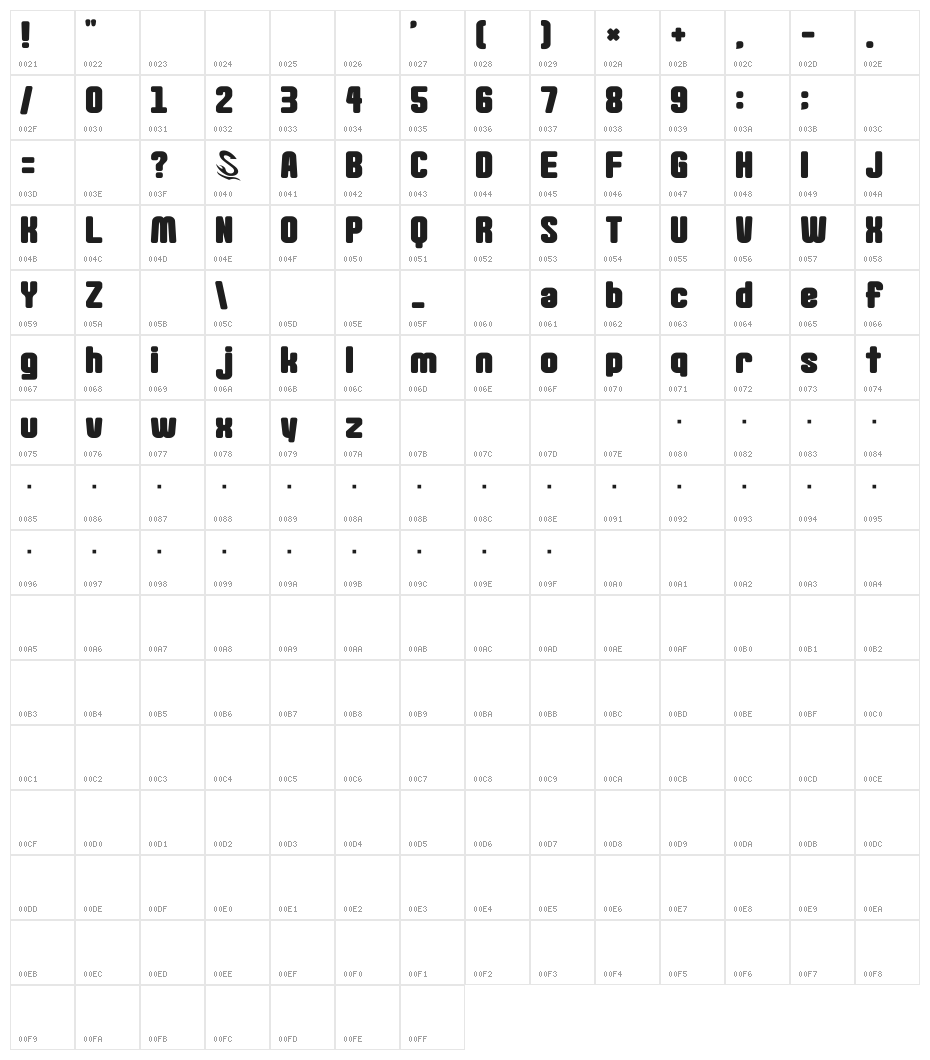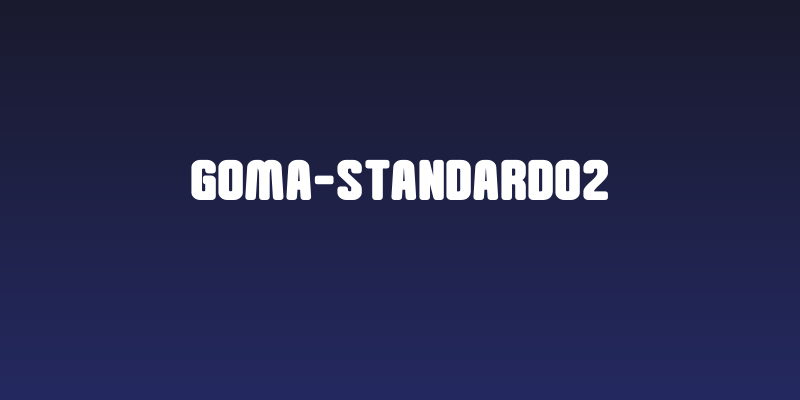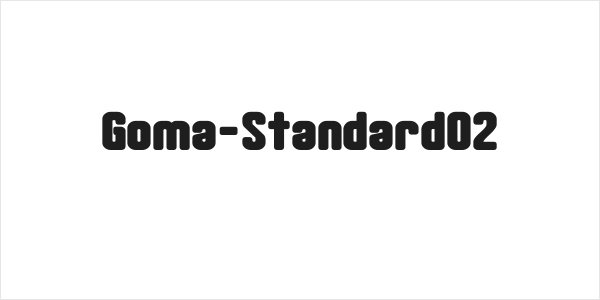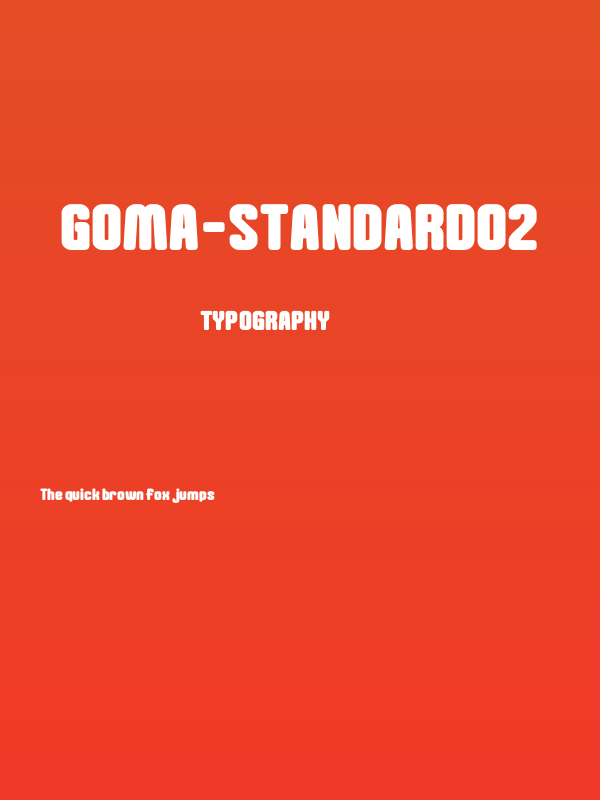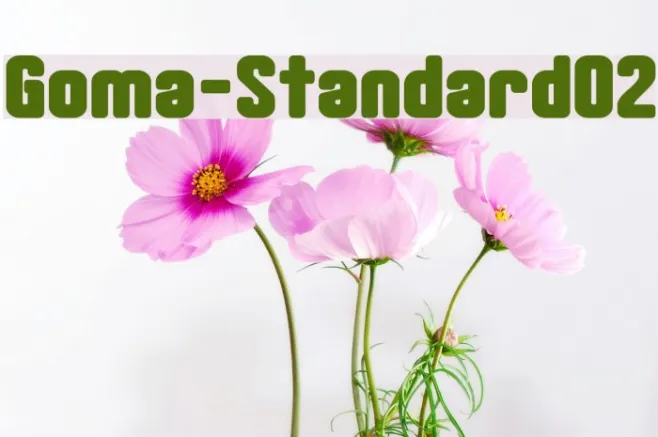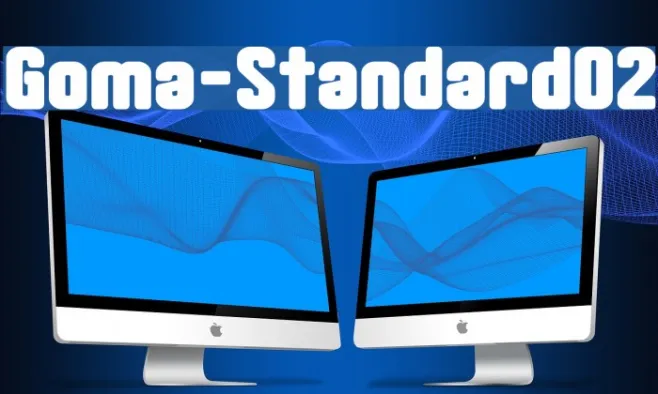
Goma-Standard02 Font
Goma-Standard02 Description
This font features bold, rounded characters with a playful and modern aesthetic. The letters are uniformly thick, giving them a strong presence on the page. The rounded edges soften the overall look, making it approachable and friendly. The uppercase and lowercase letters maintain a consistent style, with the lowercase mirroring the boldness of the uppercase. Numbers and special characters are designed to match the font's overall style, ensuring a cohesive appearance. This font is ideal for projects that require a bold and inviting typeface.
| Proposed Projects | Ideal for branding, posters, children's books, and playful design projects. |